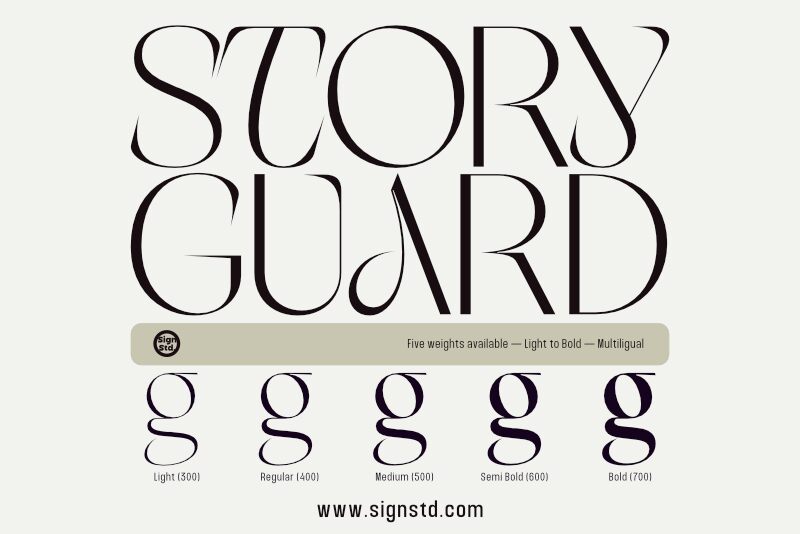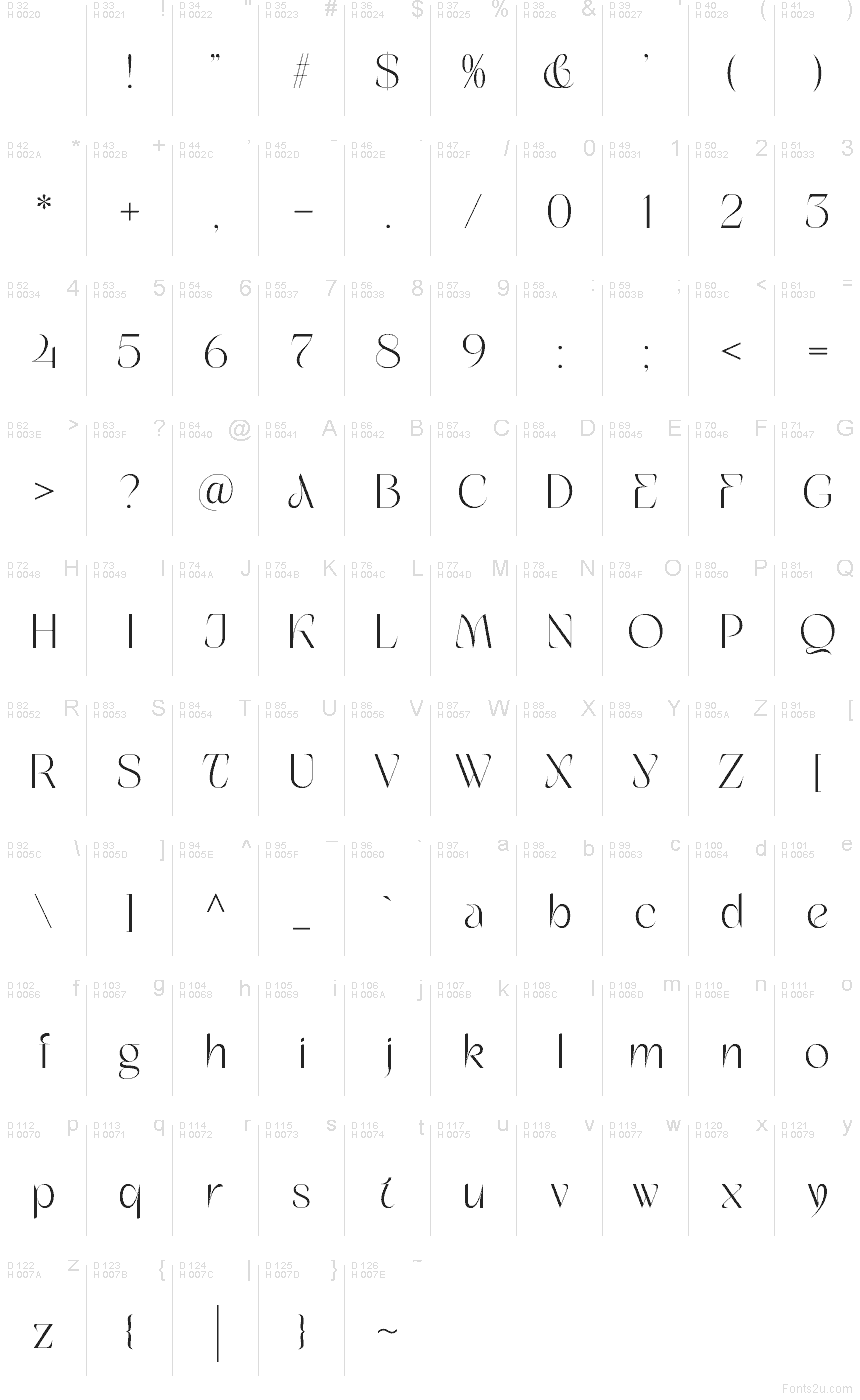
Story Guard Regular
Story Guard font by Sugiyanto of Sign Studio is a free elegant serif font, with a typeface rhythm that feels like ink pulled by a steady hand. The letters sweep and taper with graceful curves and crisp hairline moments, giving headlines a polished, storybook poise without turning fussy.
Using Story Guard works beautifully for book covers, editorial titles, film credits, boutique branding, invitations, blog hero text, and premium packaging. Set it a touch loose on spacing so the airy strokes can breathe, then pair it with a clean sans like Inter or Source Sans for body copy—this free font keeps the mood refined and readable.